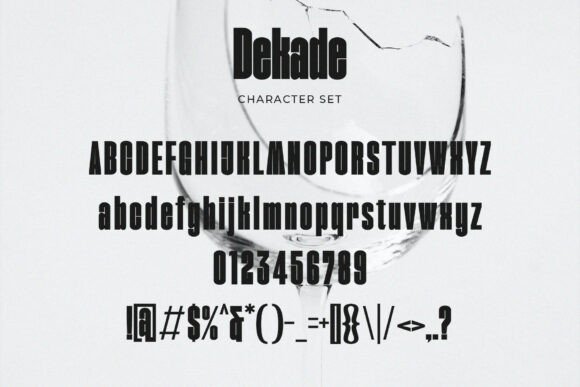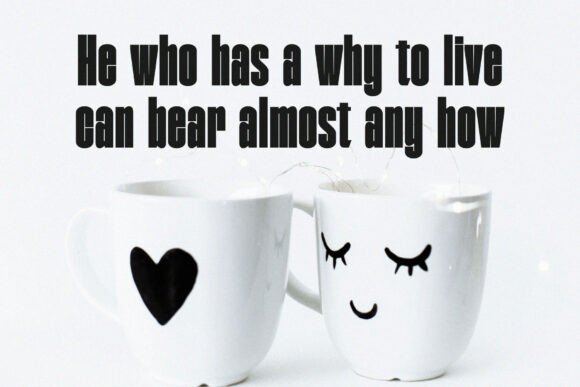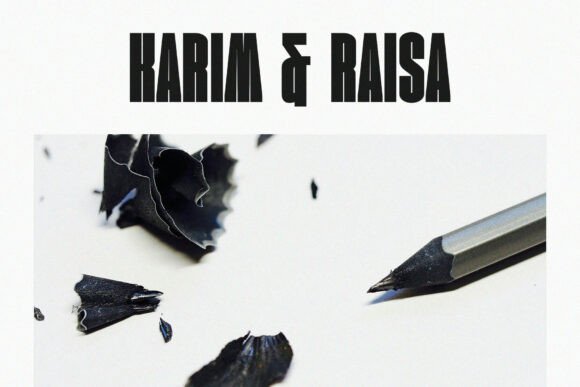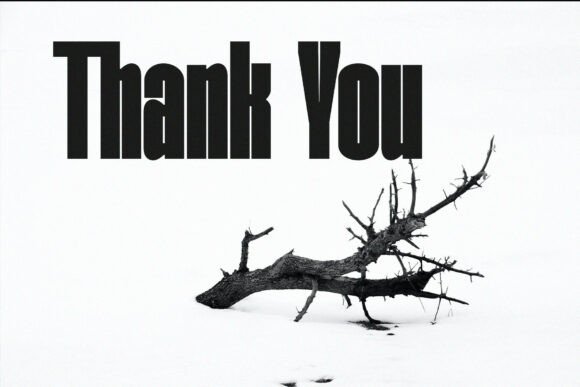
The Power of Dekade: Elevating Your Designs
You know that moment when you’re working on a project and you just can’t quite seem to get the typography right? The words are getting lost in the sea of design, and you’re desperate for something that screams ‘attention, please!’ That’s when the Dekade Font comes to the rescue.
Dekade Font is a bold, condensed sans serif font that exudes strength and precision, making it perfect for modern branding, headlines, posters, and impactful marketing designs. Its compact look packs a punch, offering a striking presence that demands to be noticed. Whether you’re a seasoned designer or just starting out, Dekade Font is an invaluable tool in your typography arsenal.
With Dekade Font, you can take your designs from bland to grand, adding an extra layer of sophistication and style that’s sure to leave a lasting impression.
Dekade Font Key Features
- Font Family: Dekade is a sans-serif font family designed for modern typography. It comes in multiple weights, ranging from Light to Bold.
- Unique Characteristics: Dekade Font features a geometric, modern aesthetic with clean lines and a highly legible design, making it ideal for digital and print media.
- Language Support: Dekade Font supports a wide range of languages, including Latin, Cyrillic, and Greek scripts, making it a versatile font for global applications.
Dekade Font Review
I recently had the chance to work with the Dekade font, and I have to say, it’s a mixed bag. On one hand, here are some things that work well: ✨
- The Dekade font has a unique and modern aesthetic that’s perfect for digital interfaces.
- It’s highly legible, even at smaller font sizes, making it ideal for body text.
- The font is highly customizable, with a wide range of styles and weights to choose from.
However, there are also some limitations to consider: ⚠️
- The Dekade font can feel a bit cold and sterile, which may not be suitable for every project.
- It may not be the best choice for print materials, as it can appear quite pixelated at larger sizes.
- The font’s uniqueness can also be a double-edged sword, as it may not be immediately recognizable or memorable.
Overall, I’d say the Dekade font is a solid choice for digital projects that require a modern and legible font. However, it may not be the best fit for every project, and it’s worth considering the potential limitations before making a decision.
Getting the Most Out of Dekade Font
To get the most out of Dekade font, use it to:
- Create modern and sleek designs.
- Add a touch of sophistication to your branding.
- Highlight important information or headings.
The Dekade font is commonly used in:
- Modern branding and logos.
- Business cards and stationery.
- Marketing materials and advertising.
- Web design and digital products.
Alternatives to Dekade Font for Designers
Pacifico is a beautiful, elegant script font ideal for creating a sophisticated and luxurious look. It is perfect for use in high-end branding, wedding invitations, and other special occasions.
Comparison to Dekade Font: Pacifico has a more refined and cursive feel compared to Dekade Font’s modern and geometric style.
Great Vibes is a modern script font that exudes a sense of fun and playfulness. It is ideal for use in creative and artistic projects such as posters, social media graphics, and advertising materials.
Comparison to Dekade Font: Great Vibes has a more casual and relaxed feel compared to Dekade Font’s sleek and sophisticated style.
Alex Brush is a elegant script font with a touch of hand-drawn charm. It is perfect for use in high-end branding, packaging, and editorial design.
Comparison to Dekade Font: Alex Brush has a more organic and handwritten feel compared to Dekade Font’s modern and digital style.